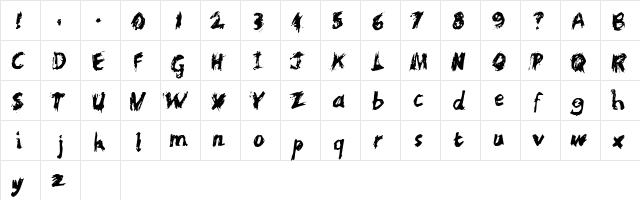
Scratchy Large
Design Context for Scratchy Typeface
Scratchy is a composed and adaptable typeface that performs quietly and consistently across a wide range of design contexts.